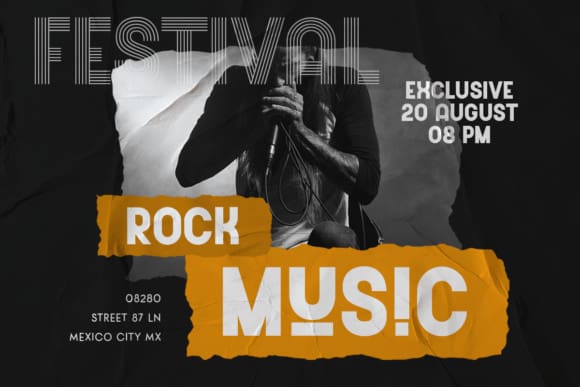
Kyoto Font
Kyoto Font is a fresh sans serif display font designed for modern use with its own unique style. It’s a brand-new addition crafted especially for distinctive branding needs, boasting a quirky style that enhances your brand’s appeal. Perfect for designers and product owners seeking solutions to give their designs a unique and urban edge.